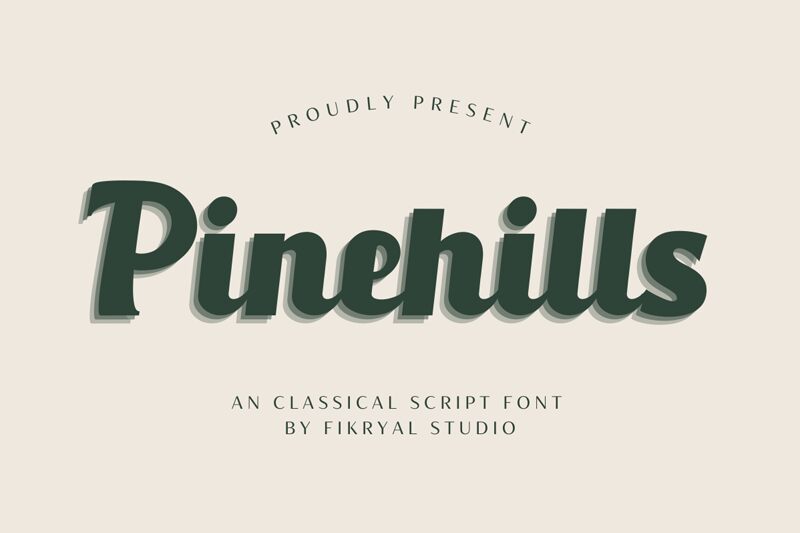
Pinehills
Pinehills, crafted by Fikryal Studio, is a font that exudes an aura of timeless elegance with its classic script style. The bold strokes give it a sense of confidence and presence, making it stand out in any design. Its sweeping curves and refined flourishes evoke the charm of hand-lettered craftsmanship, bringing a personal touch to digital spaces.
This font's aesthetic appeal lies in its harmonious blend of traditional beauty and modern boldness, perfect for creating impactful logos, sophisticated invitations, or compelling branding materials. Pinehills can effortlessly elevate the visual narrative of any project seeking to convey luxury, exclusivity, or artisanal quality.